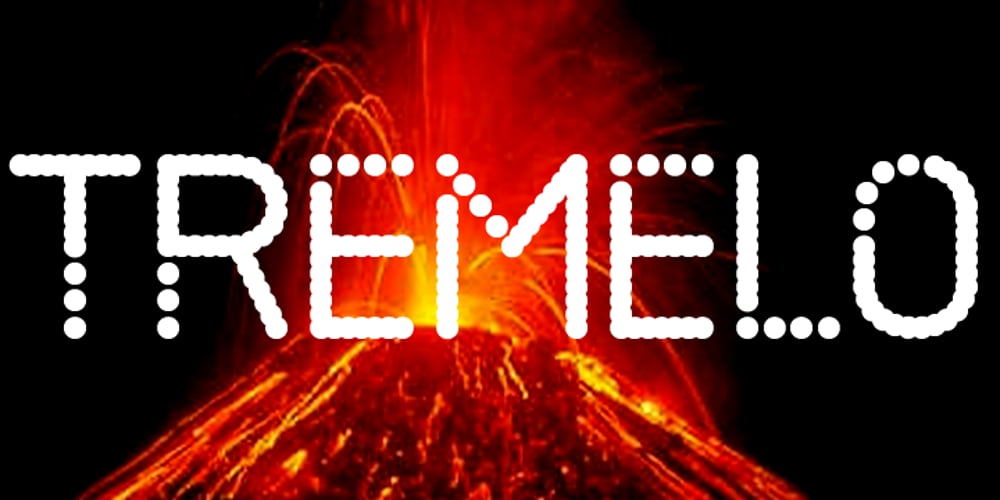
AT Move Tremelo Font Family was designed by André Toet, Jasper Nijssen and published by André Toet Design. AT Move Tremelo contains 1 styles and family package options. TREMELO a typeface based on a logotype (Microtel). We designed it as a complete capital alphabet. The original idea for the logotype font came from the products the firm produced. They provided the parts that go into hearing-aids. We thought the type should have some visual tremor in it. Concept/Art Direction/Design: André Toet © 2017